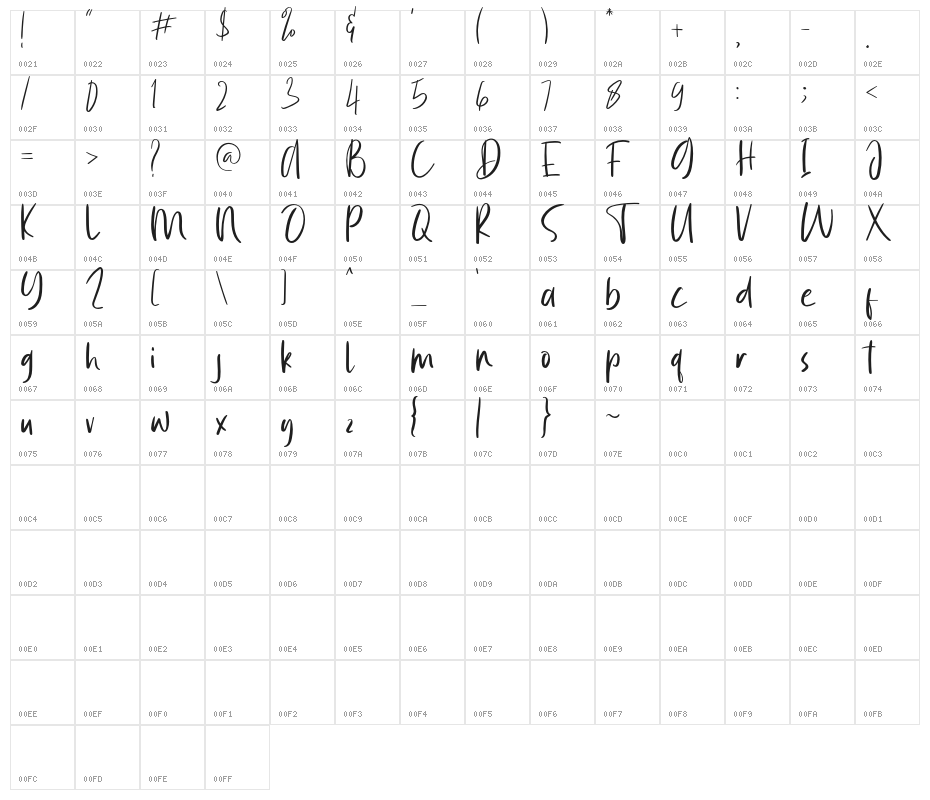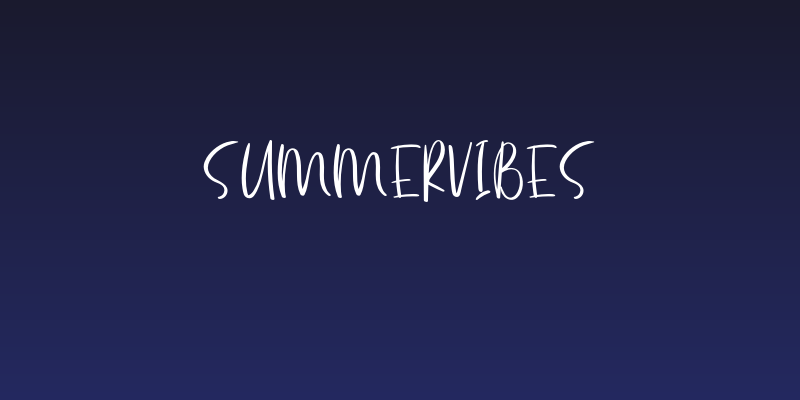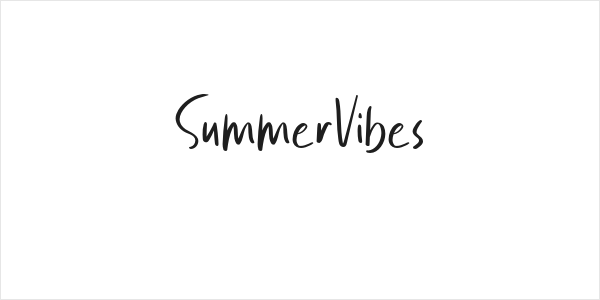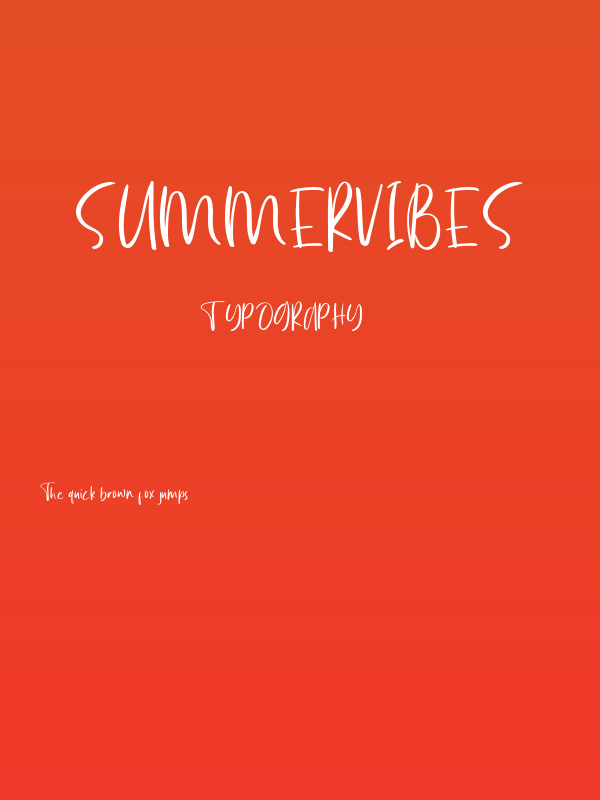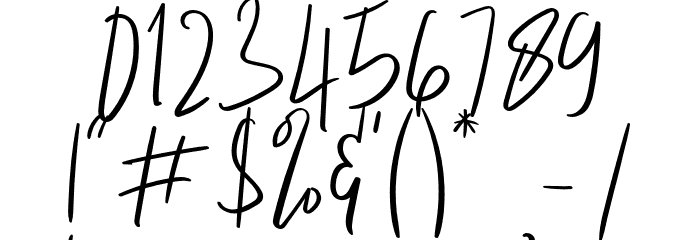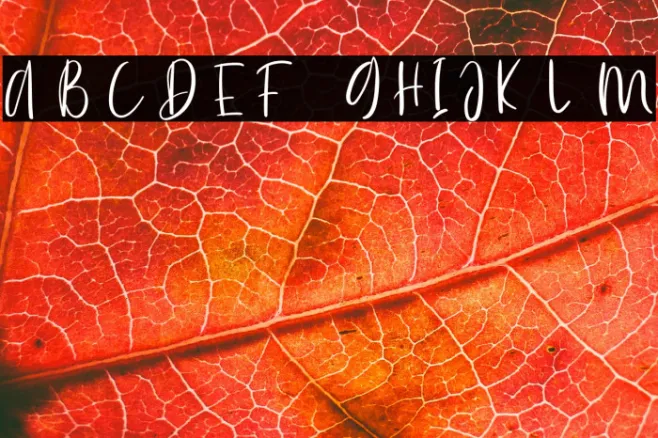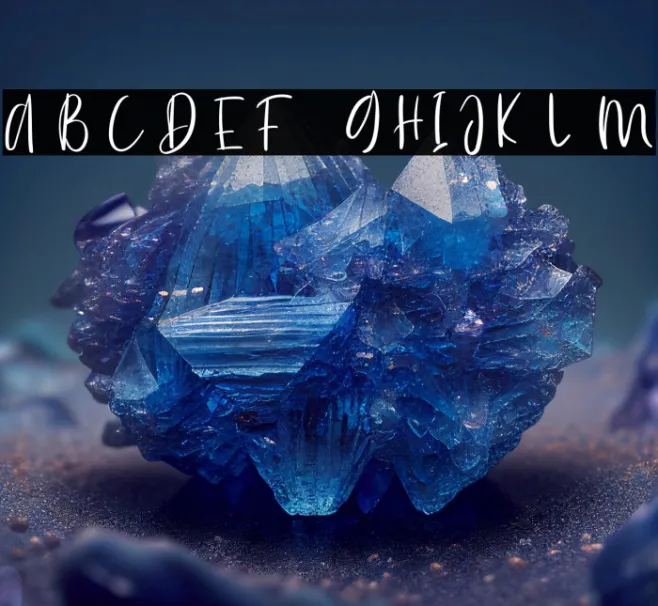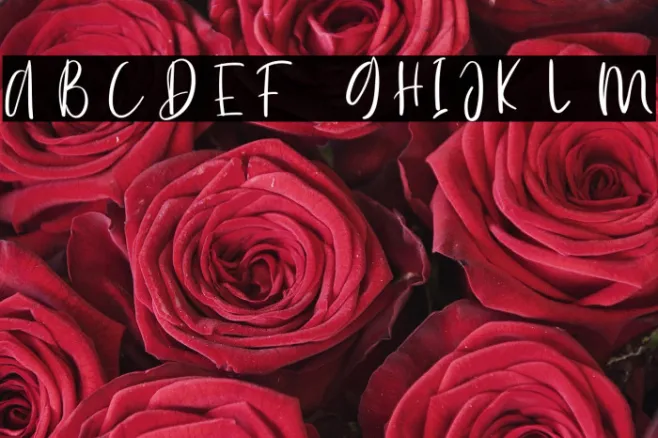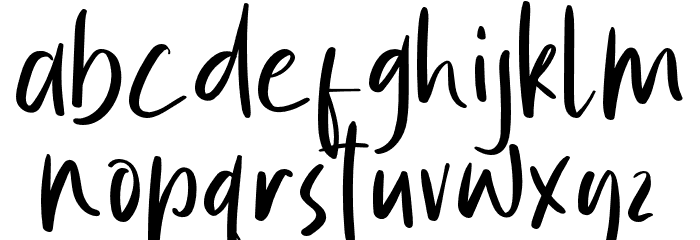
SummerVibes Font
SummerVibes Description
This font exudes a playful and energetic vibe, characterized by its handwritten style with a casual flair. The uppercase letters are tall and slender, with a slight slant that adds a dynamic feel. The lowercase letters are more rounded and bold, providing a nice contrast to the uppercase. The numbers and special characters maintain the same lively and informal style, making the font suitable for creative and informal projects. The strokes vary in thickness, giving it a natural, hand-drawn appearance that is both approachable and stylish.